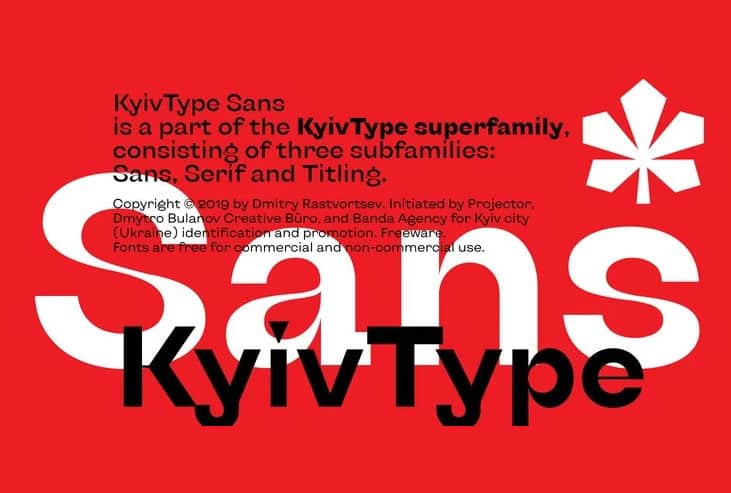
KyivType Sans Serif Font Family
KyivType Sans Serif Font is an incredibly Unique and Interesting sans serif display font that is absolutely great for your next creative project such as logos, printed quotes, invitations, cards, product packaging, headers, Logotype, Letterhead, Poster, Apparel Design, Label, and etc.